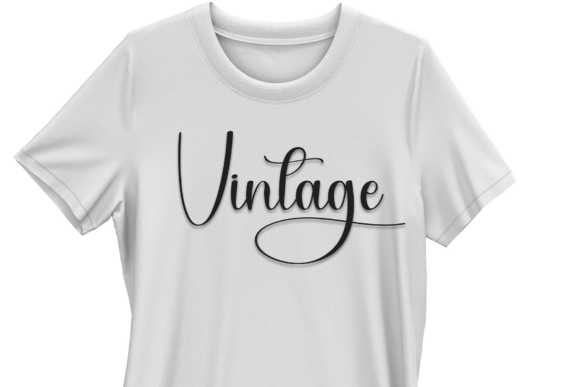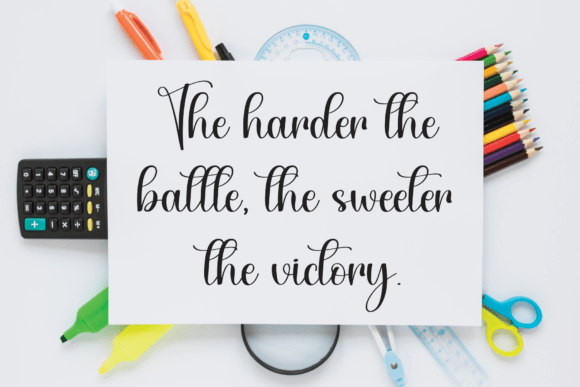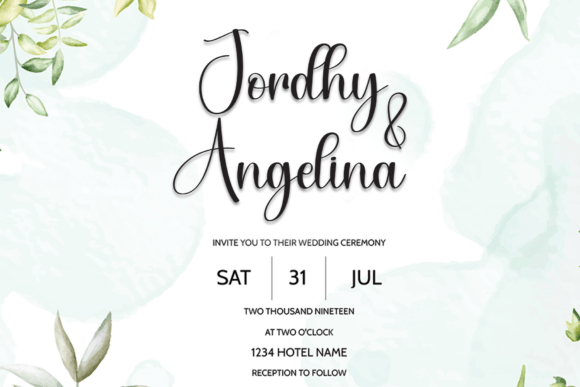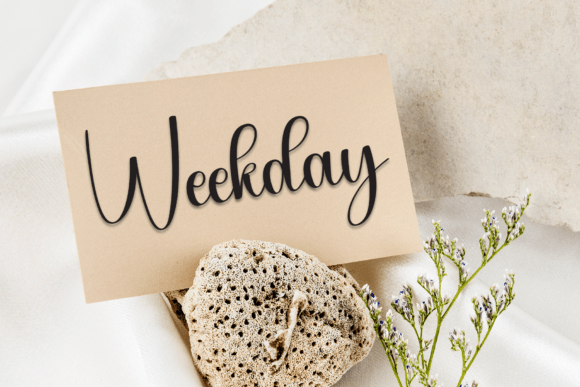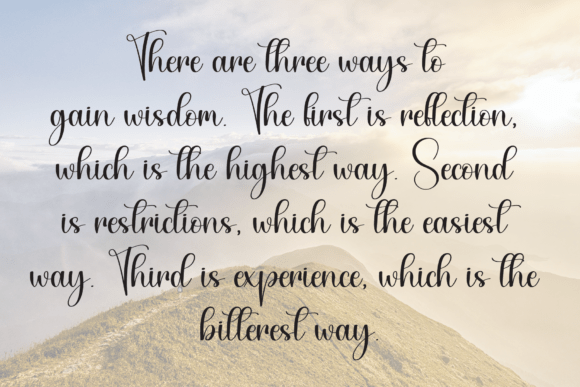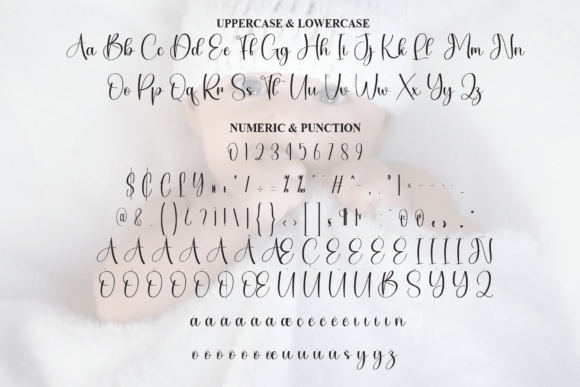
Babyday Font: Elevate Your Designs with Elegance and Sophistication
In the world of typography, a font can make or break a design. For those seeking to add a touch of luxury and refinement to their projects, the Babyday Font is an exceptional choice. This beautifully flowing script font, with its modern calligraphy touch, is designed to bring an air of elegance and sophistication to any design.
The Characteristics of Babyday Font
Babyday Font is characterized by its graceful curves and stylish flourishes, which work in harmony to create a truly regal look. Its modern calligraphy touch sets it apart from more traditional script fonts, giving it a fresh and contemporary feel that is sure to captivate audiences. Whether you’re working on wedding invitations, branding materials, social media graphics, or luxury projects, Babyday Font is the perfect choice.
Perfect for Wedding Invitations and Luxury Projects
Wedding invitations and luxury projects demand a level of sophistication and elegance that Babyday Font effortlessly provides. Its flowing script and beautiful flourishes evoke a sense of romance and glamour, making it ideal for:
- Wedding invitations and save-the-date cards
- Branding materials for high-end businesses
- Luxury packaging and product design
- Social media graphics and advertisements
Why Choose Babyday Font?
With so many fonts available, why choose Babyday Font for your next project? Here are just a few reasons:
- Unique and Memorable: Babyday Font’s modern calligraphy touch and elegant curves make it a standout choice that will leave a lasting impression on your audience.
- Versatile: From wedding invitations to luxury branding, Babyday Font is versatile enough to be used across a wide range of projects and applications.
- Elegant and Sophisticated: This font’s refined look and feel make it perfect for designs that require a touch of luxury and sophistication.
Tips for Using Babyday Font Effectively
To get the most out of Babyday Font, here are a few tips to keep in mind:
- Pair with Neutral Colors: Babyday Font looks stunning when paired with neutral colors like white, black, or soft pastels. This allows the font to take center stage and showcase its elegant curves.
- Use for Headings and Titles: Babyday Font is perfect for headings and titles, where its stylish flourishes can really shine. Use it to add a touch of sophistication to your design.
- Experiment with Sizes: Don’t be afraid to experiment with different font sizes to create visual interest and hierarchy in your design.
In conclusion, Babyday Font is a beautifully flowing script font that adds a touch of elegance and sophistication to any design. Its modern calligraphy touch, graceful curves, and stylish flourishes make it perfect for wedding invitations, branding, social media, and luxury projects. With its unique and memorable look, versatility, and elegant feel, Babyday Font is sure to elevate your designs and leave a lasting impression on your audience.
Whether you’re a designer, crafter, or simply someone looking to add a touch of luxury to your projects, Babyday Font is an exceptional choice. So why not give it a try and see the difference it can make in your designs?